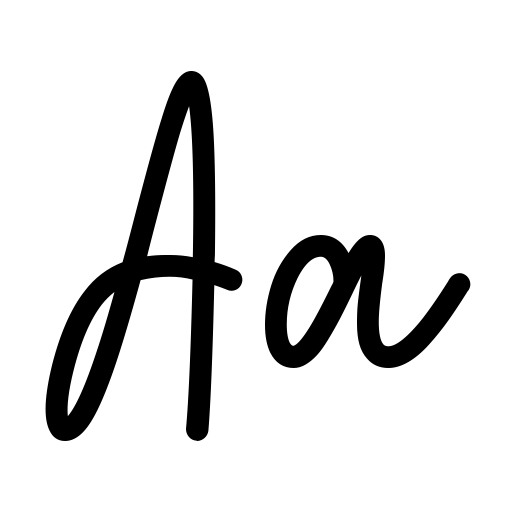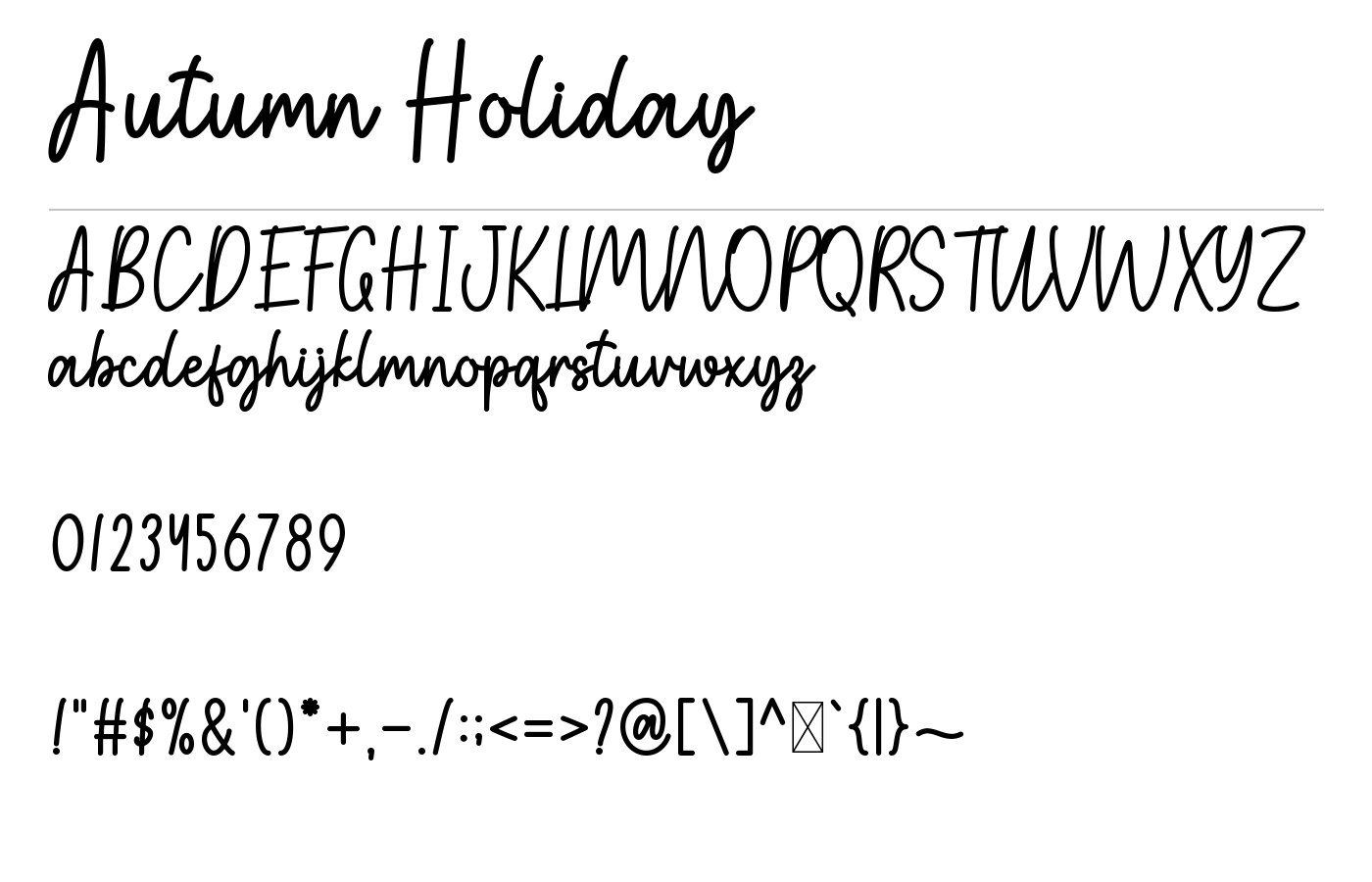
Autumn Holiday is a lively and casual handwritten font with a friendly, informal style. Its slender, moderately tall letterforms feature smooth, playful strokes that evoke a personal, warm feeling, making it perfect for projects that need a charming and approachable touch. Ideal for invitations, branding, and creative designs, this font brings a fresh, natural vibe to any visual communication.
Autumn Holiday Font
About Autumn Holiday Font
| Font family | Autumn Holiday Font |
| Designer | Wahyu Setiyawan |